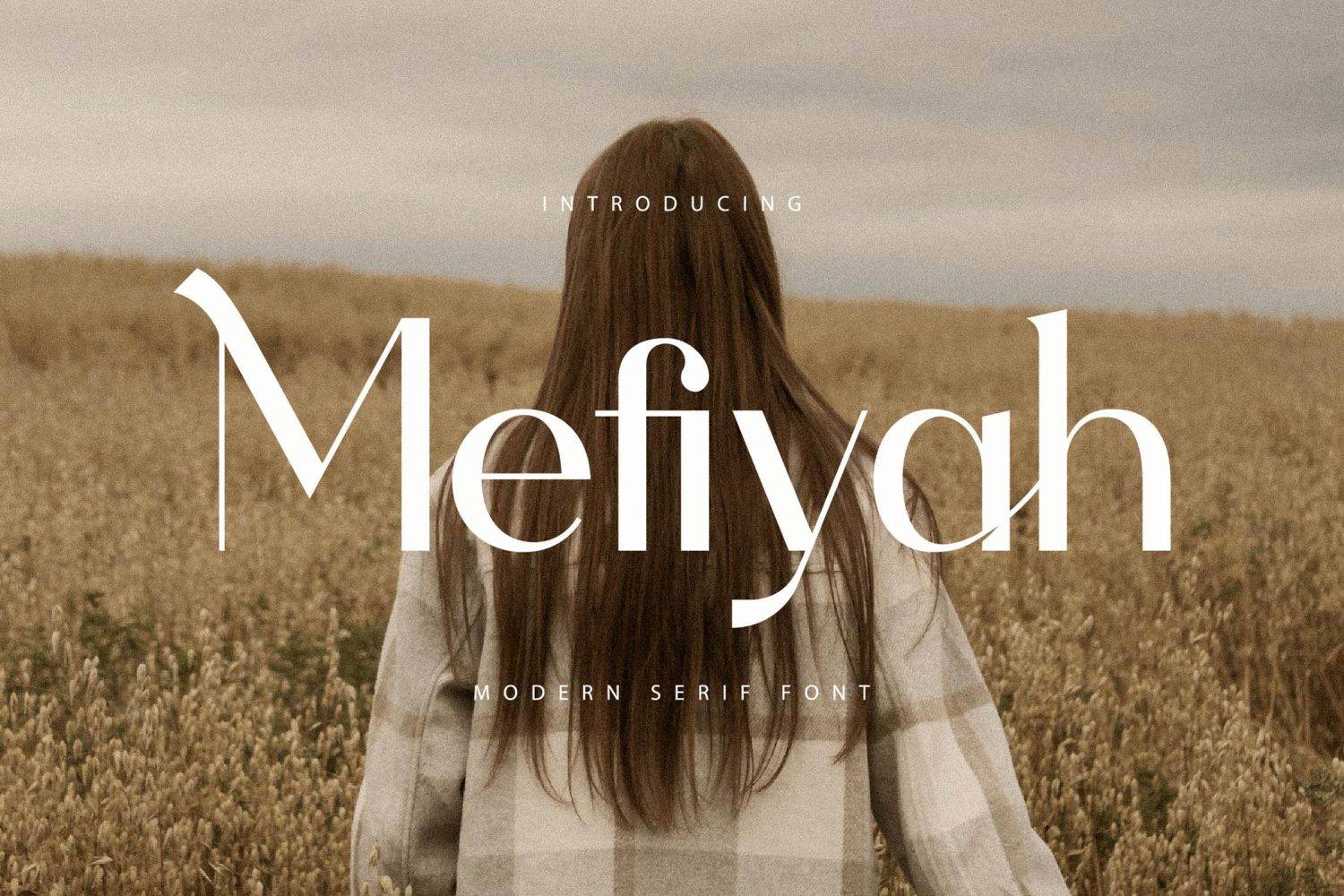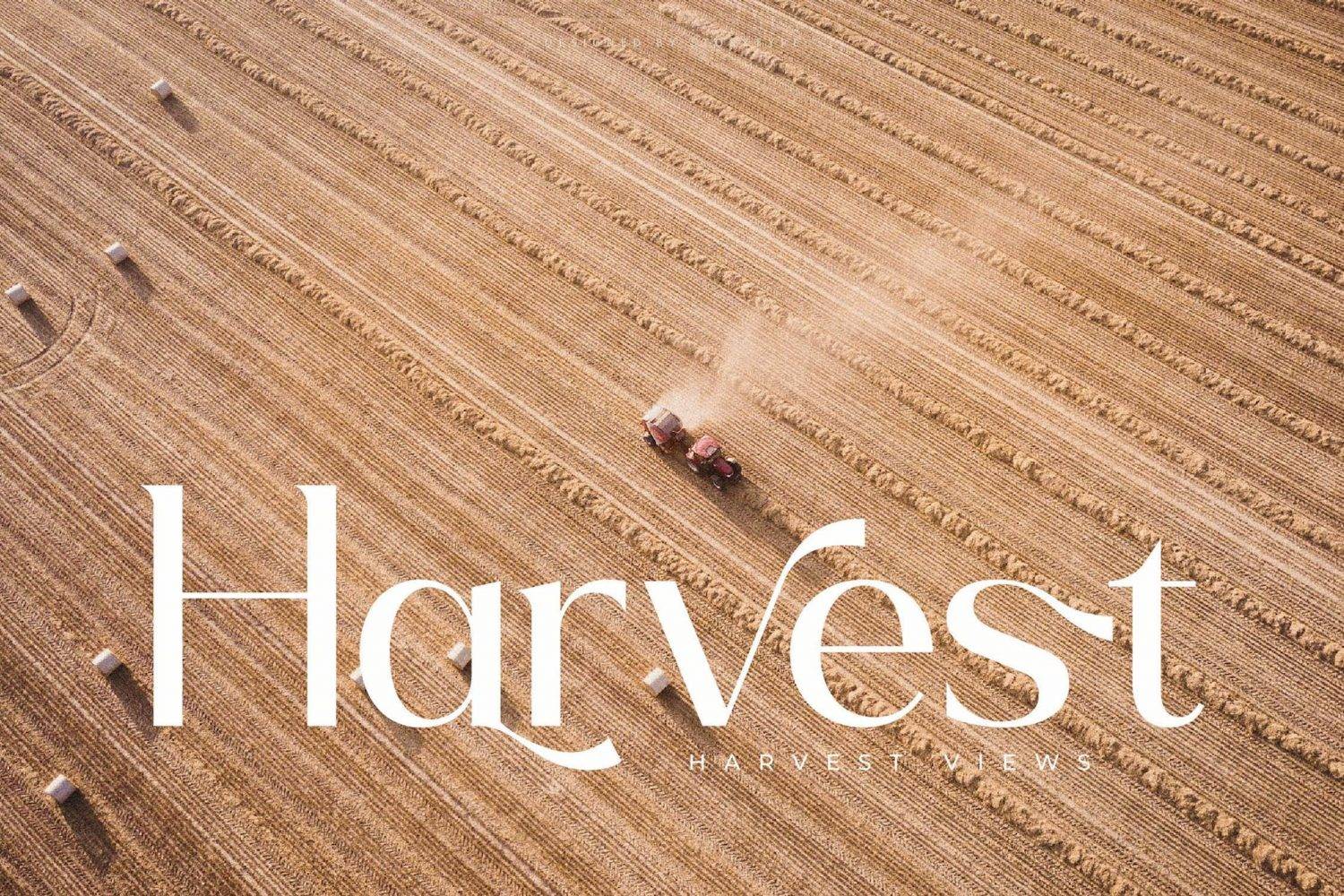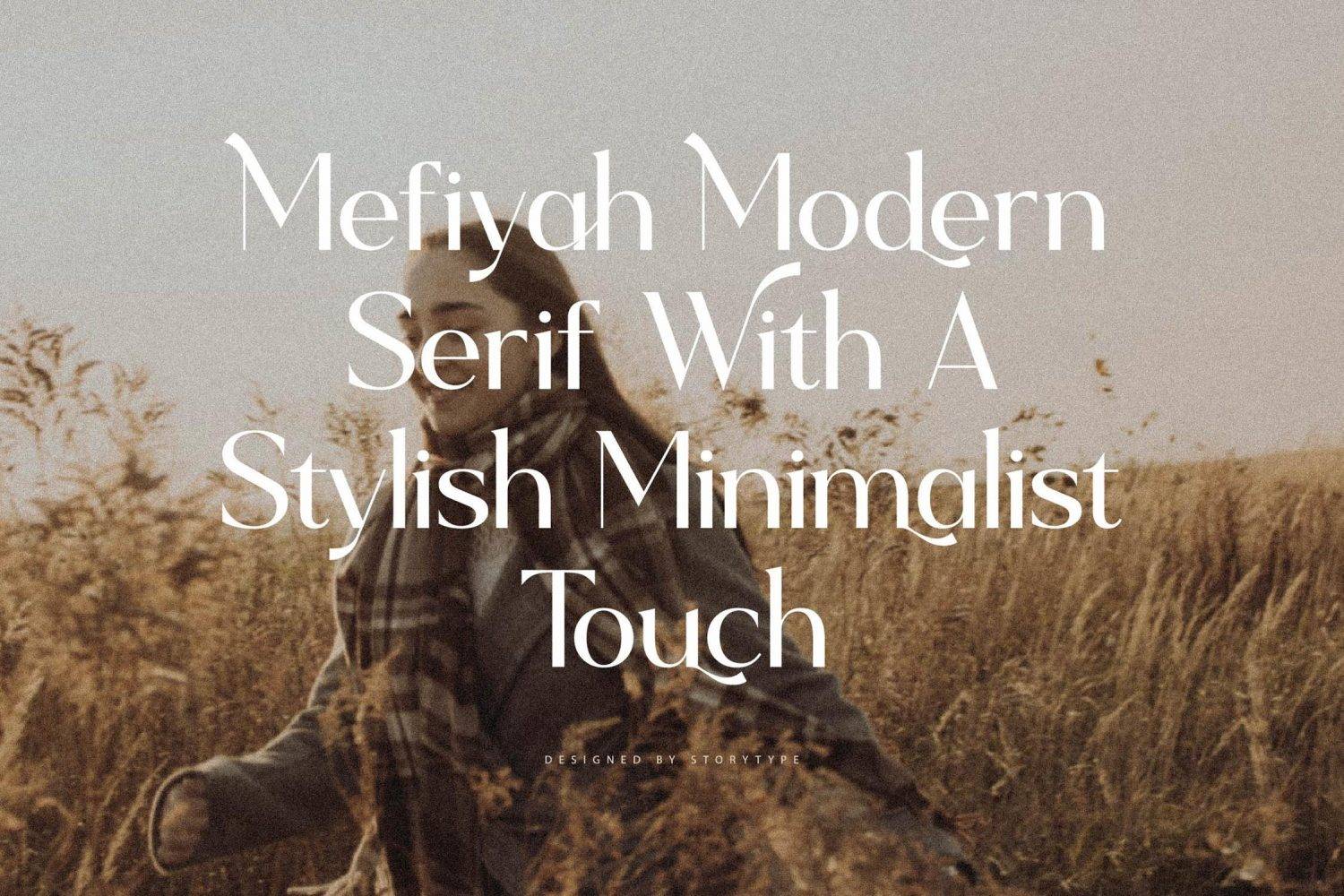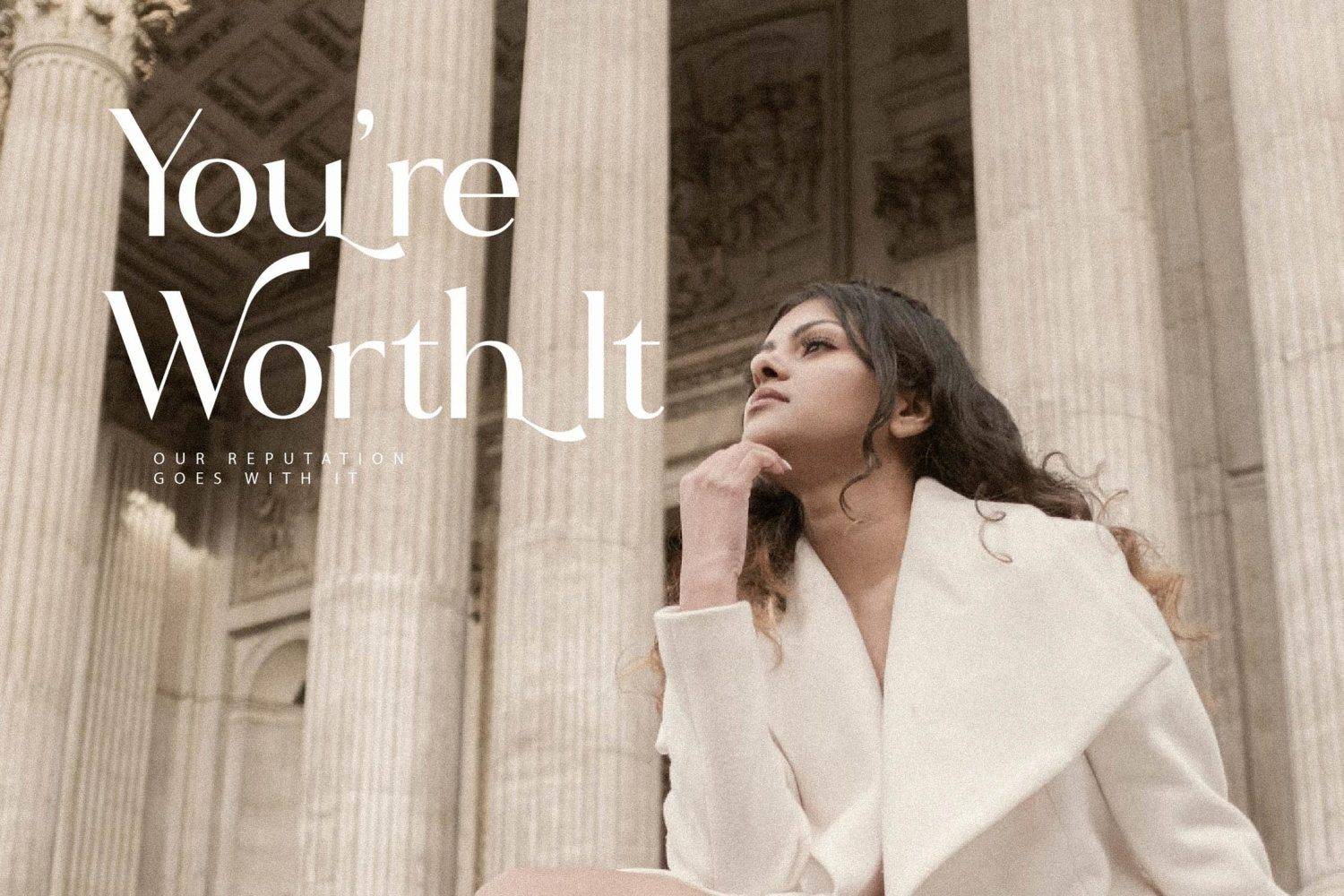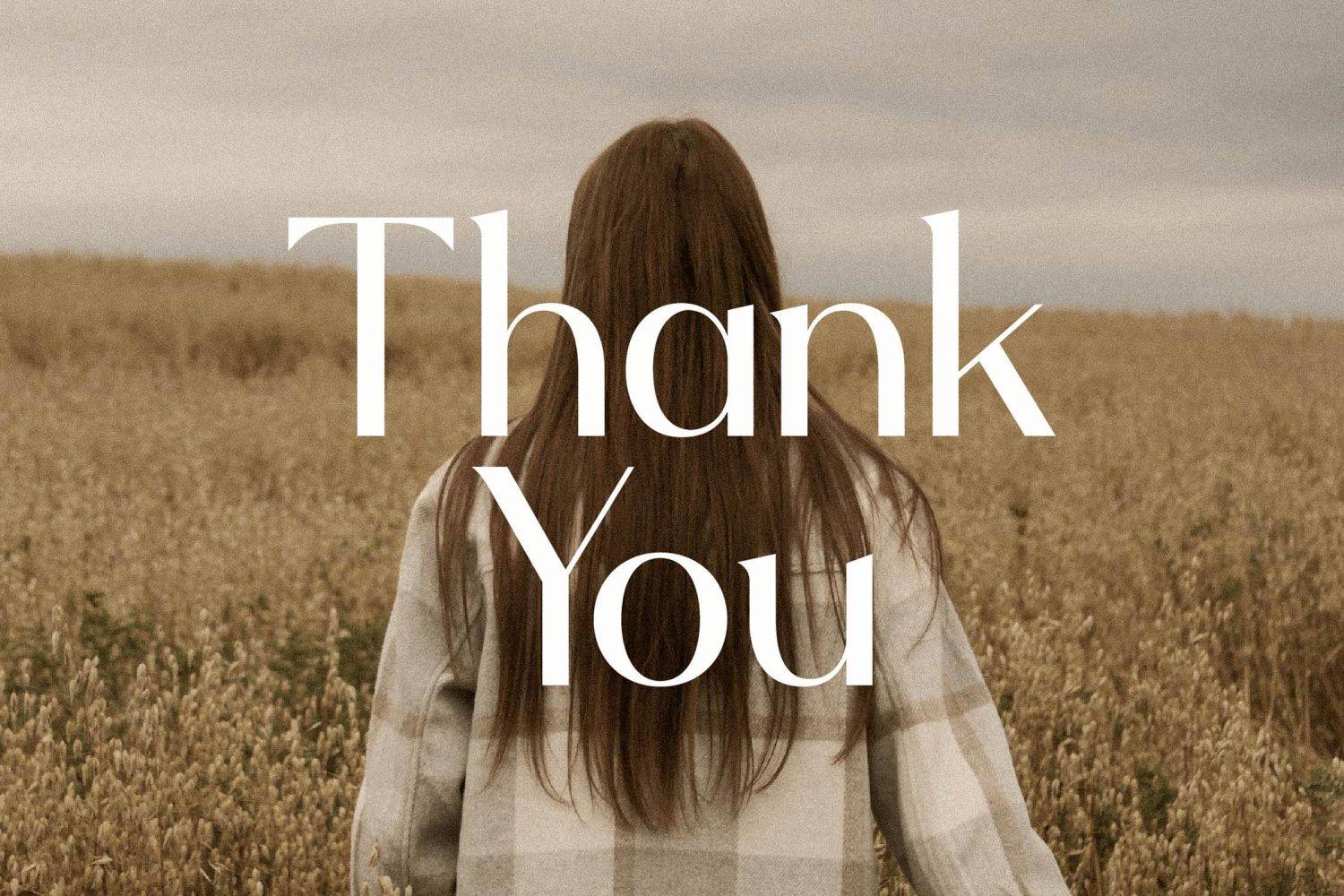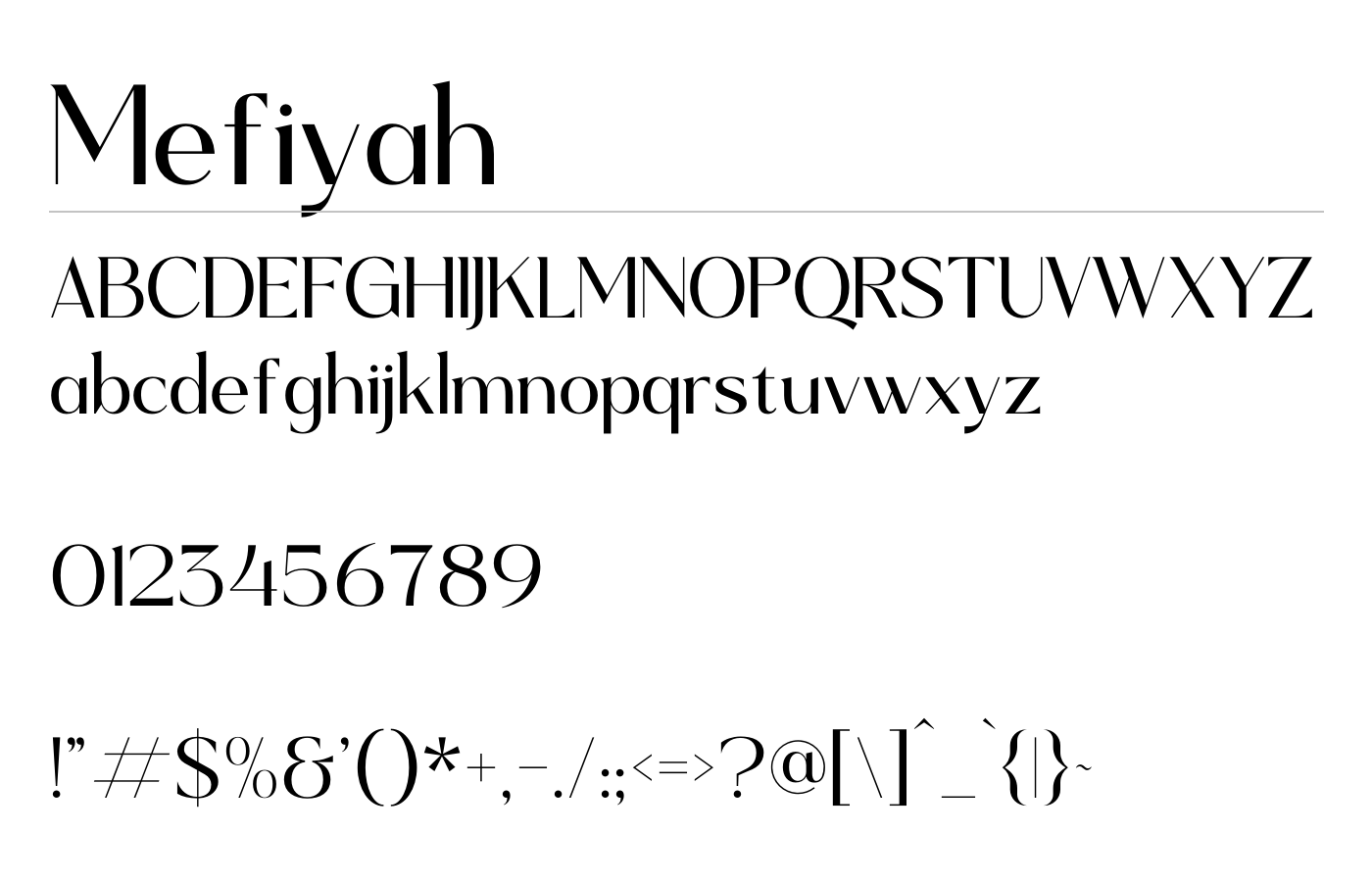
Mefiyah is a refined serif font with a distinctive high-contrast stroke style that blends elegance and modernity. Its slender, slightly condensed letterforms and delicate serifs give it a sophisticated appearance, making it ideal for upscale branding, fashion editorials, and stylish headlines where a touch of luxury and clarity are desired. This font's unique design balances readability with a graceful, artistic flair, perfect for projects seeking a chic and polished aesthetic.
Mefiyah Font